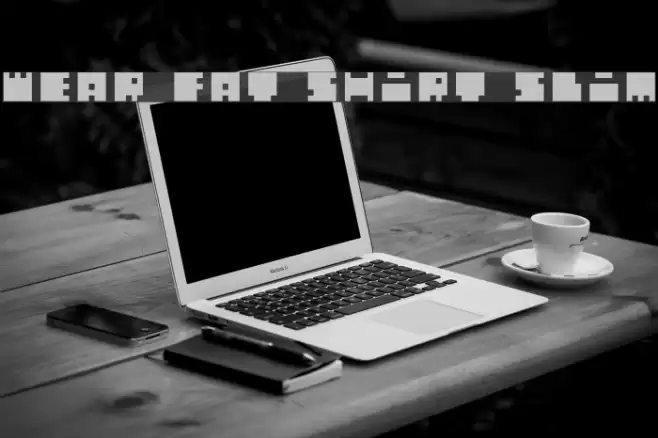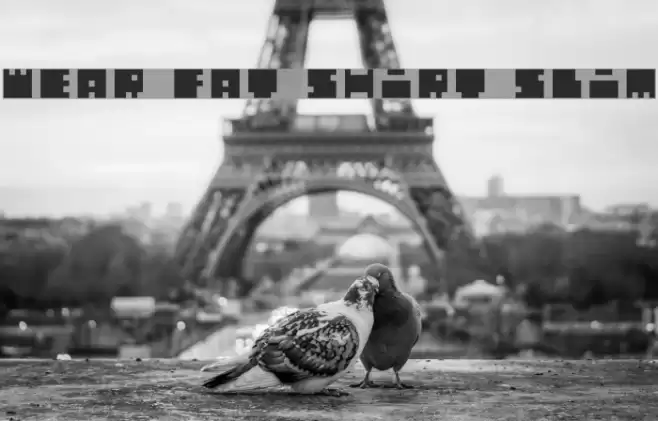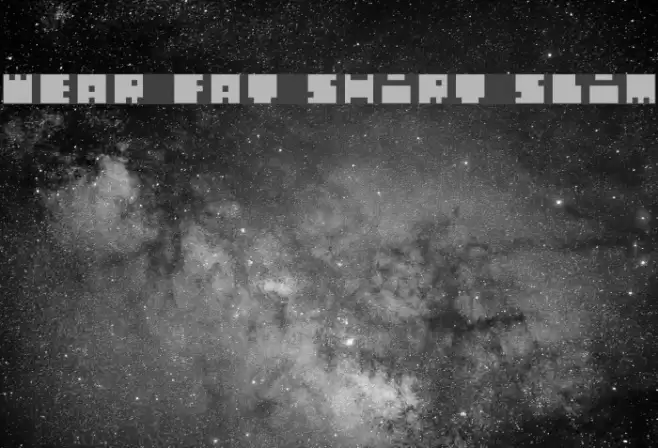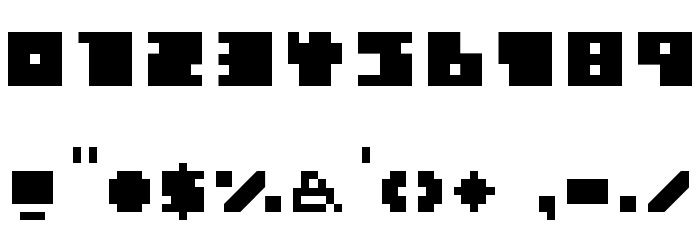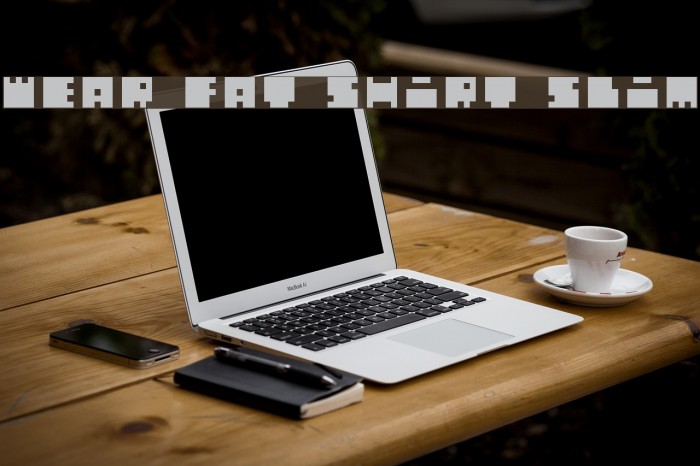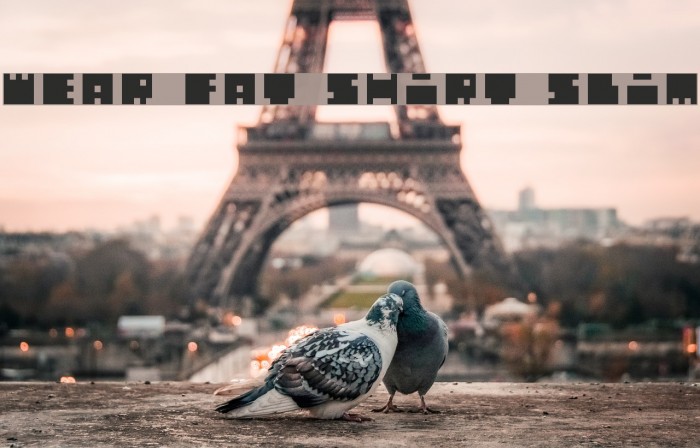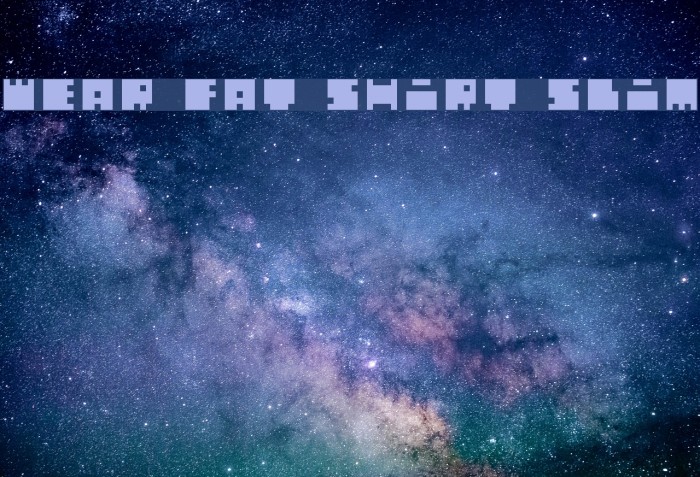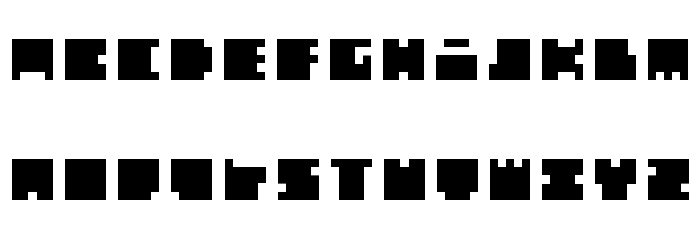
WEAR FAT SHIRT Slim Font
WEAR FAT SHIRT Slim Description
This font features a bold, blocky design with a distinctly pixelated aesthetic, reminiscent of early digital or video game typography. Each character is composed of solid, square shapes, creating a uniform and cohesive look. The uppercase and lowercase letters maintain a consistent height, contributing to the font's monospaced appearance. The numbers and special characters follow the same geometric style, ensuring visual harmony across all elements. This font's unique style makes it highly suitable for projects that aim to evoke a retro or tech-inspired feel.
A bold, pixelated font with a retro, digital aesthetic from Futuristic fonts.
- Proposed Projects: Ideal for video game design, retro-themed posters, digital art projects, and tech-related branding.
- Overall Style: Retro, Digital